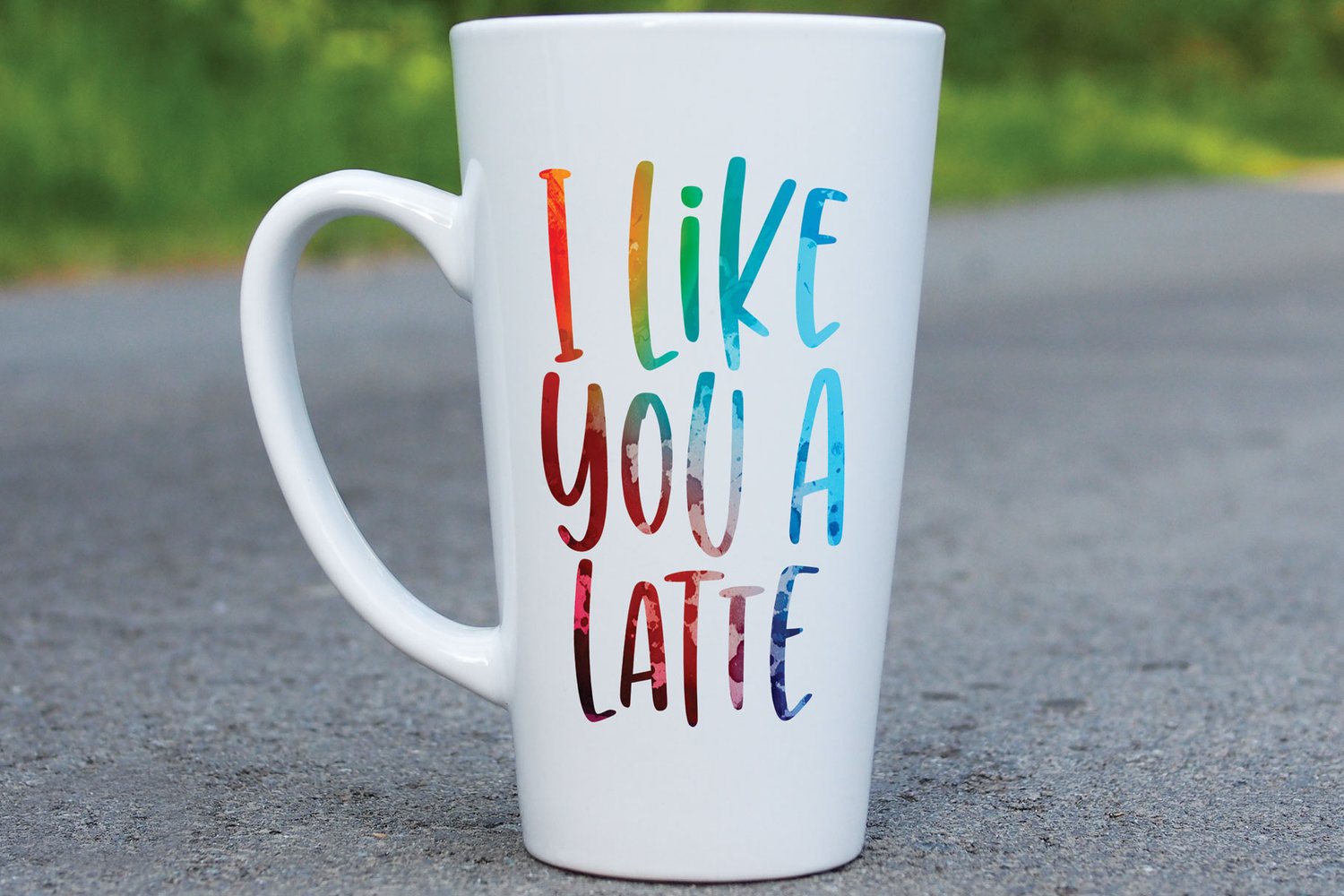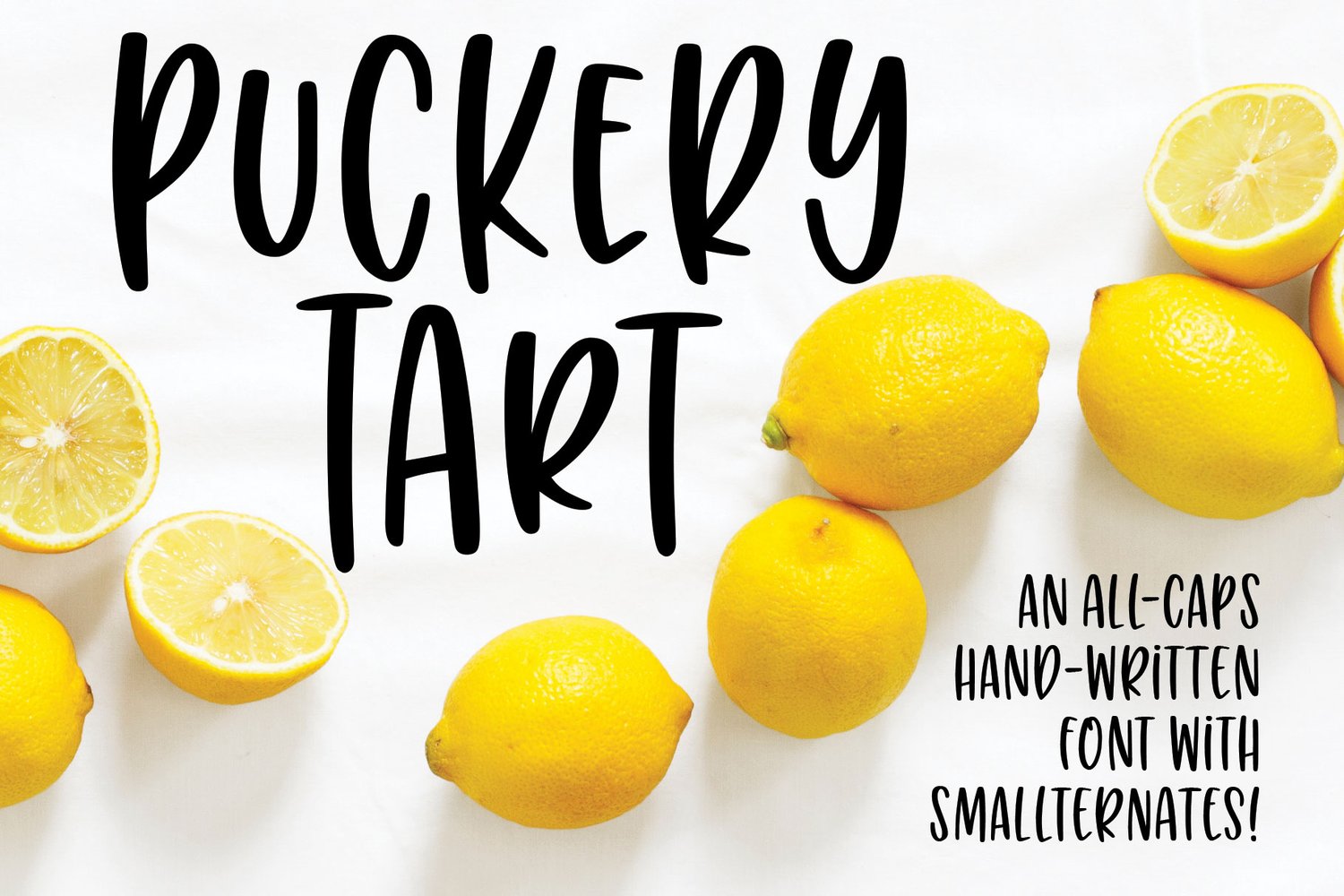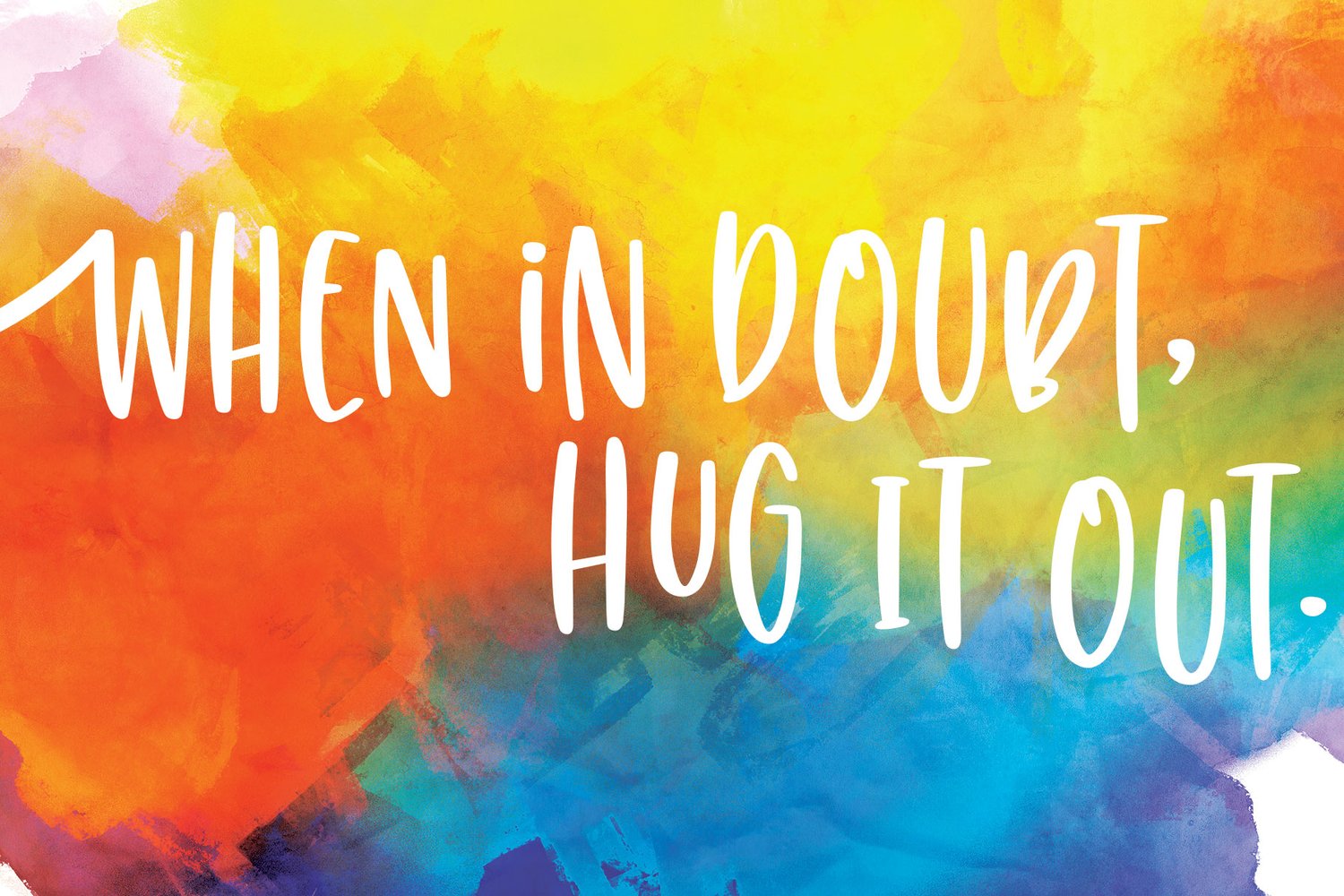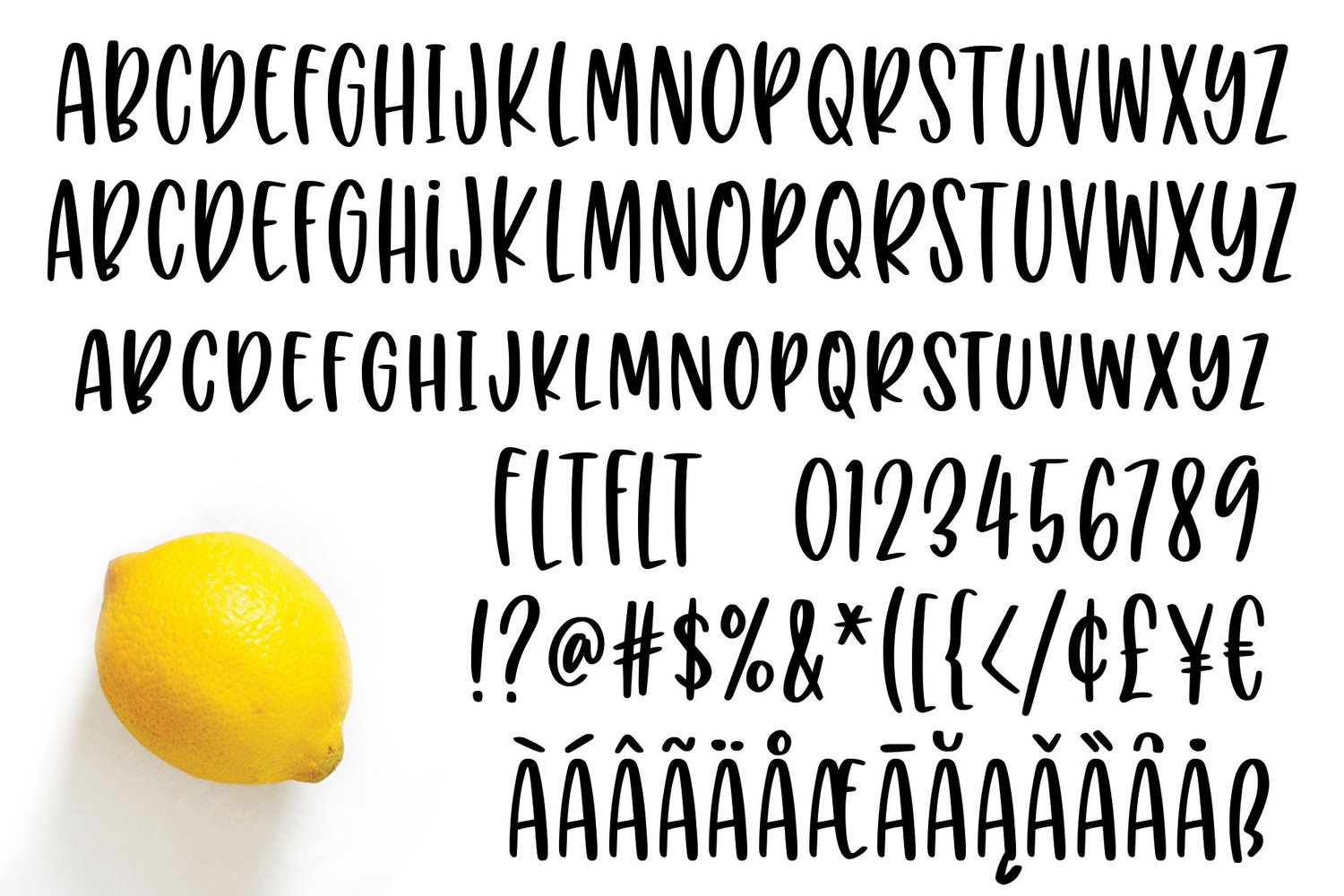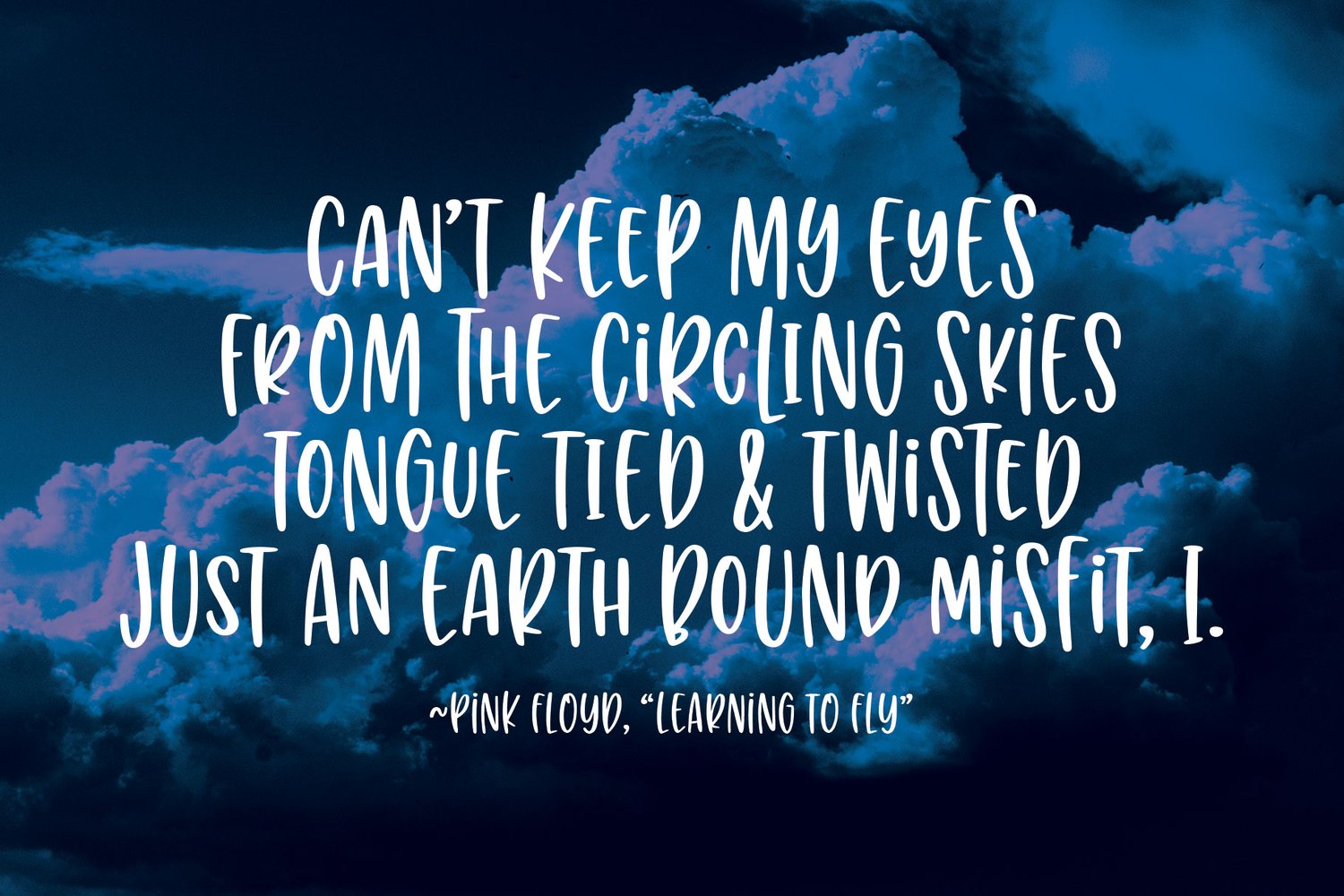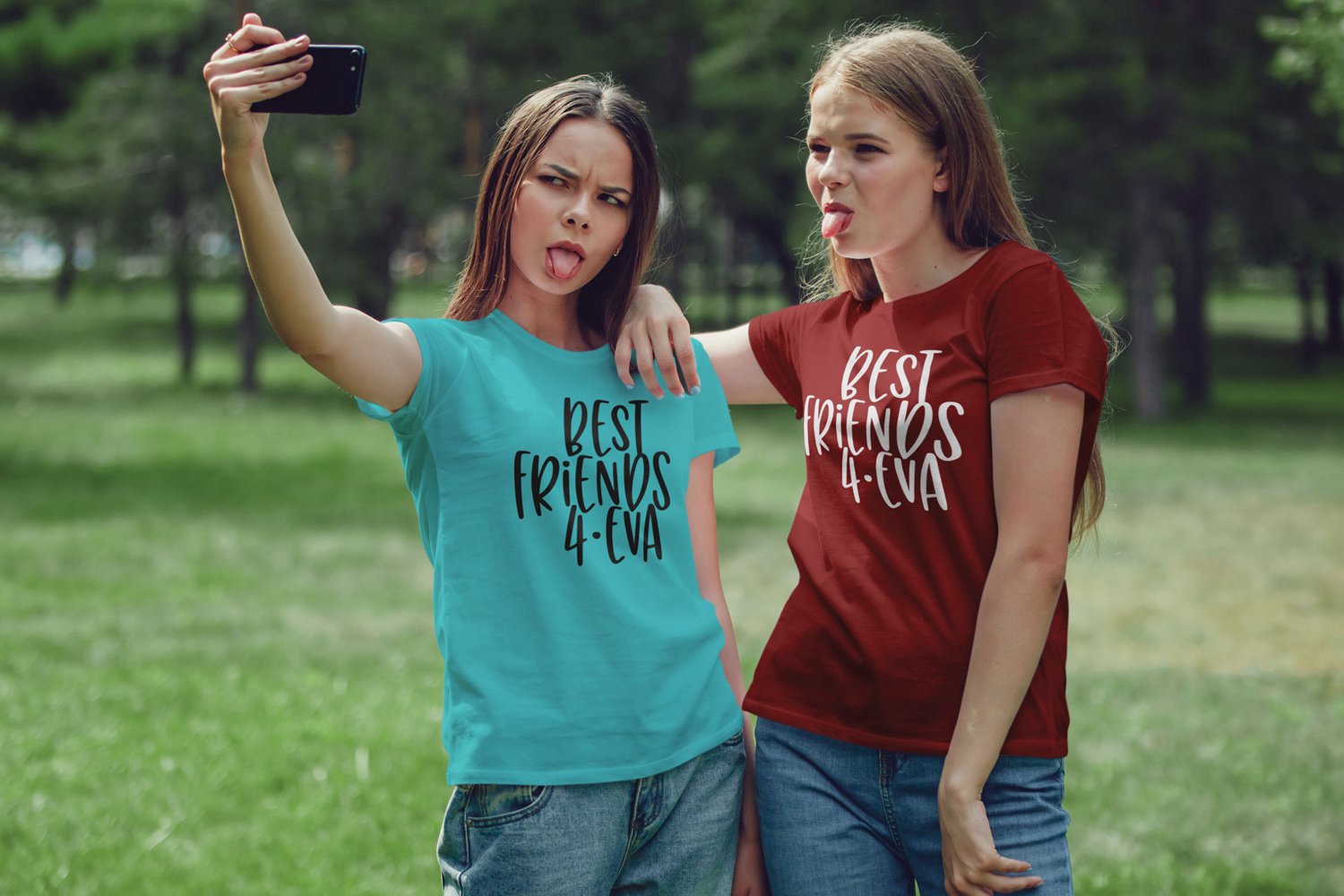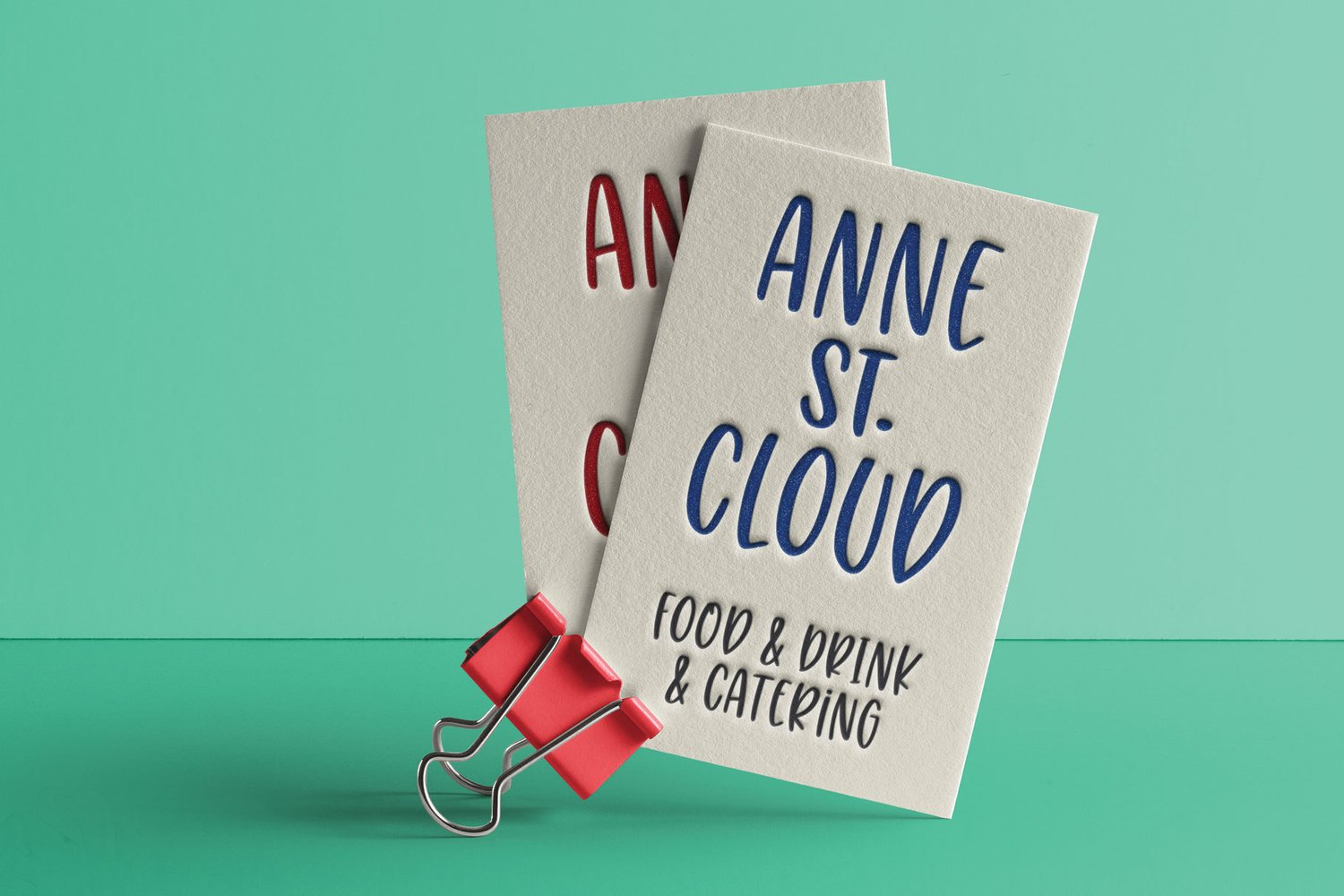
Puckery Tart
I like almost all citrus, but I gotta be honest — lemons are by far my favorite. After wanting one for over 20 years, I recently got my very own lemon tree, so I'm celebrating by naming a font PUCKERY TART!
This is a taller, narrower hand-lettered font with plenty of variety to make your projects look hand-written!
Puckery Tart is a double-uppercase font: one full set mapped to the uppercase letters, and another set of uppercase mapped to the lowercase letters, so you can mix and match between the two. But that's not all! I've also included a full third set of shorter alternates (Small Caps if you have OpenType software; available in the PUA character section if not) to add some variety. Plus, I've thrown in a few extra-tall versions of F, L, and T — those classic letters that like to cuddle other letters.
Puckery Tart also contains over 300 extended Latin characters for language support, including, but not limited to: Catalan, Czech, Danish, Esperanto, Estonian, Finnish, French, Gaelic, German, Icelandic, Irish, Italian, Latvian, Lithuanian, Norwegian, Polish, Portuguese, Romanian, Serbian (Latin), Slovak, Slovenian, Spanish, Swedish, Turkish, Welsh, and more!